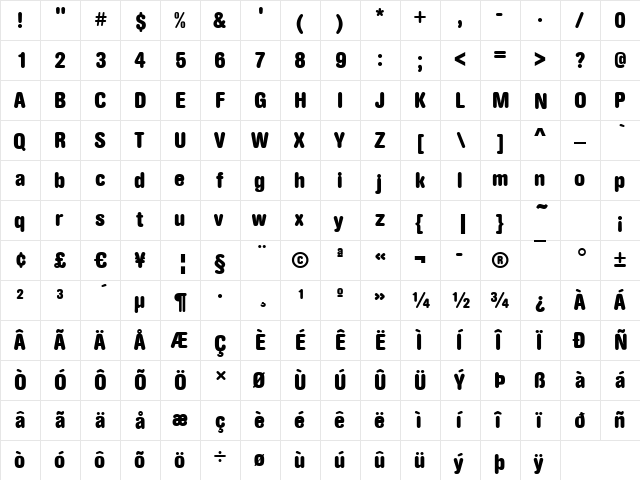
Arezzo-Rounded-Cd Bold Font Preview
Arezzo-Rounded-Cd Bold
Design Context for Arezzo-Rounded-Cd Typeface
Arezzo-Rounded-Cd uses gentle rounded endings to create a warm, inviting typographic personality — less corporate than geometric sans, more refined than playful display fonts. Its bold stroke weight gives it real presence on the page.
Well-suited to UI design, mobile interfaces, and any brand that wants approachability without sacrificing clarity.
Font Pairing: Pairs well with a rounded or humanist sans for body copy, maintaining the friendly tone without relying on Arezzo-Rounded-Cd to carry extended reading.
Pro Tip: Use Arezzo-Rounded-Cd for UI elements, app interfaces, and anywhere a friendly, approachable tone needs to be maintained without sacrificing clarity.